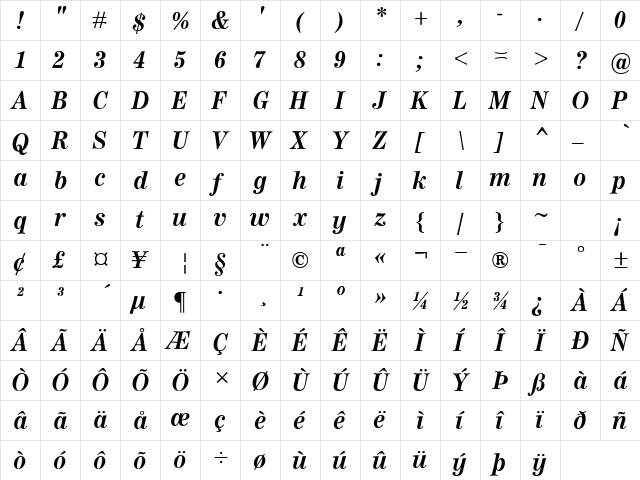
Worldwide BoldItalic
Design Context for Worldwide Typeface
Worldwide offers clean, dependable letterforms without strong stylistic allegiance, making it a practical choice for designers who need flexibility. Its italic angle brings a sense of urgency and motion to the letterforms. The heavy weight commands attention and anchors typographic hierarchies.
Pro Tip: Try Worldwide for annotation and caption copy alongside an upright companion — the contrast in angle creates a dynamic but ordered typographic system.